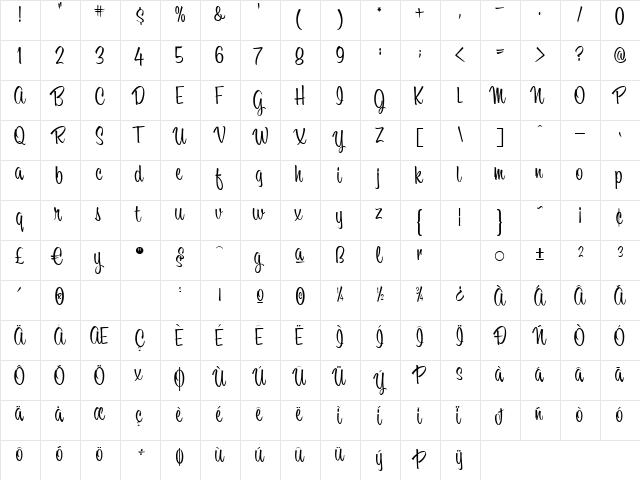
LHF Bounce Script Regular
Design Context for LHF Bounce Script Typeface
LHF Bounce Script brings a calligraphic fluidity to the page — its connecting strokes and expressive curves give it an unmistakably human quality.
Font Pairing: Combine LHF Bounce Script with a simple geometric sans for maximum contrast — the tension between flowing curves and clean structure is a classic typographic pairing.
Pro Tip: Pair LHF Bounce Script with a clean sans-serif for supporting text. The contrast between fluid script and geometric structure creates an elegant typographic hierarchy.